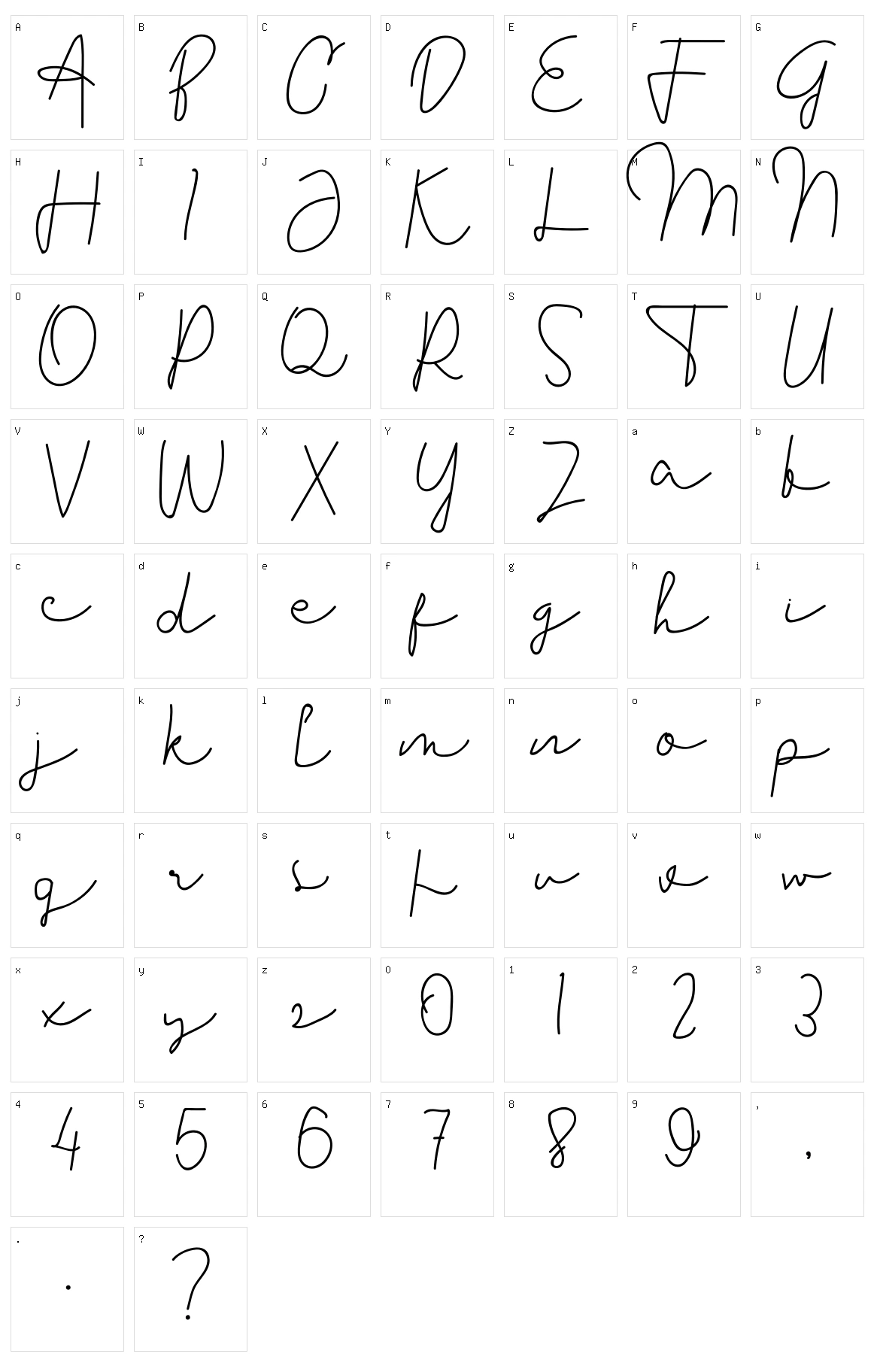
The free font Gabriello is carefully designed by Airotype Studio, showcasing a thoughtful balance of creativity and usability and falls under the Script font style. When you download the ZIP file, it contains only 36.03 KB of font files, making it lightweight and quick to download. Please review the license details below to understand permitted usage and distribution rights. If license information is not available, we recommend using this font for personal projects only or contacting the author directly for commercial usage permissions.